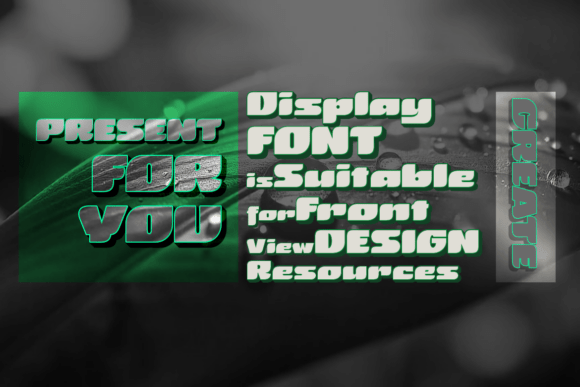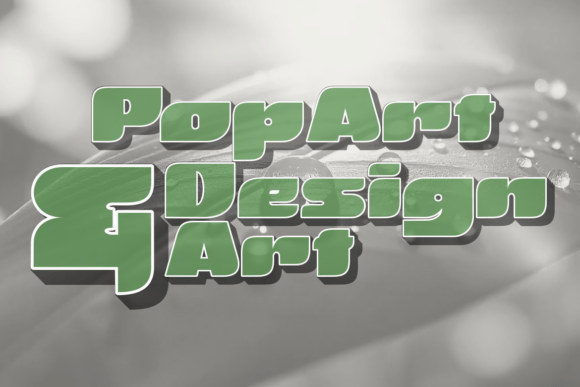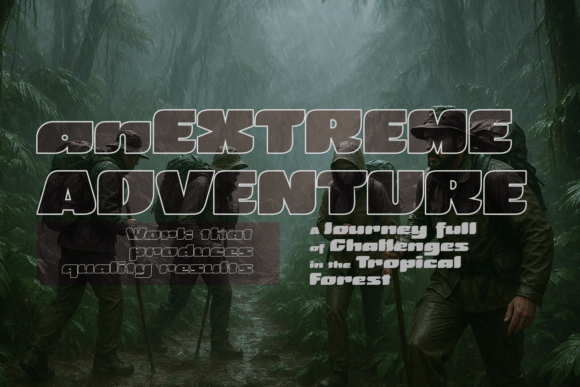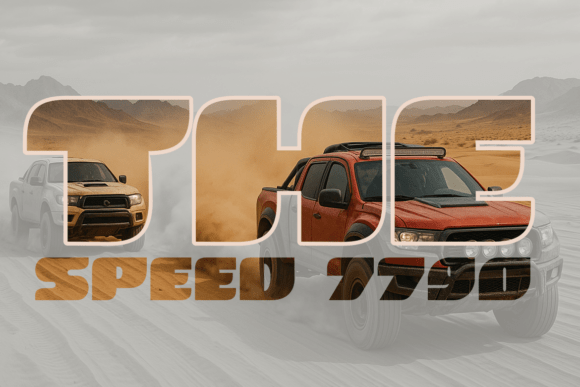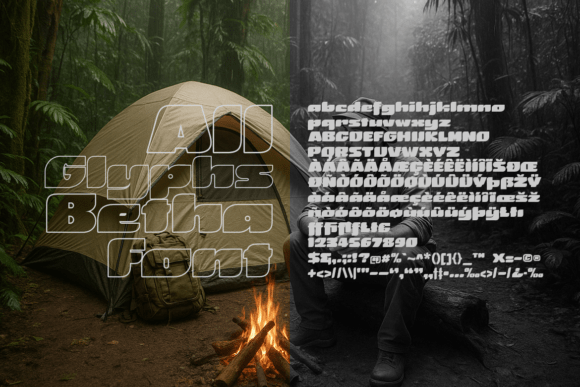
Betha Font: Elevate Your Designs with a Modern Urban Twist
In the realm of typography, the right font can make all the difference in elevating your design from ordinary to extraordinary. For those seeking a modern, urban aesthetic, the Betha font is an exceptional choice. This versatile font family is designed to meet the demands of contemporary design, offering a range of styles and applications that cater to various creative needs.
What is Betha Font?
Betha is an urban font that embodies the spirit of modern typography. Characterized by its clean lines, sleek appearance, and adaptability, Betha is well-suited for a wide array of design projects. Whether you’re working on branding, logos, magazines, films, or any other creative endeavor, Betha provides the perfect blend of style and functionality.
Key Features of Betha Font
Betha stands out with several key features that make it an invaluable asset for designers:
- Variations: Betha offers a font family with 3 variations, providing a range of options to suit different design requirements.
- Extruded and Outlined: In addition to its solid form, Betha is also equipped with extruded and outlined versions, adding depth and versatility to your designs.
- Drop Shadow: Each extruded version comes with a drop shadow option, enhancing the three-dimensional effect and adding a modern flair to your text.
- Line Separation: The line separation between Betha Solid and Betha Extruded offers further customization possibilities, allowing for intricate and layered designs.
Applications of Betha Font
The adaptability of Betha font makes it suitable for a myriad of applications:
- Brands and Logos: Different weights of Betha font provide a wide range of applications, making it ideal for branding and logo design. The outlined font, in particular, gives a distinctly modern feel to logos.
- Magazines and Publications: For editorial designs, Betha’s clarity and readability make it an excellent choice for headings and titles, adding a touch of urban sophistication to any publication.
- Films and Motion Graphics: In the realm of film and motion graphics, Betha’s extruded and outlined versions can add dramatic effects, enhancing the visual impact of titles and credits.
Why Choose Betha Font?
Betha font is more than just a typeface; it’s a design solution that offers:
- Modern Aesthetic: Its contemporary design ensures that your projects look current and stylish.
- Versatility: With multiple variations and styles, Betha can be adapted to fit a wide range of design needs.
- Enhanced Creativity: The extruded, outlined, and drop shadow options provide a creative playground for designers to experiment with depth, texture, and effects.
Betha font is a powerful tool for designers looking to infuse their projects with a modern, urban vibe. Its comprehensive range of styles, from solid and extruded to outlined versions, coupled with the added effects of drop shadows and line separation, make it an incredibly versatile asset. Whether you’re crafting a brand identity, designing a magazine, or working on a film, Betha font offers the perfect combination of style, functionality, and creativity to bring your vision to life.
Embrace the potential of Betha font in your next design project and discover how this modern urban typeface can elevate your creative work to new heights.